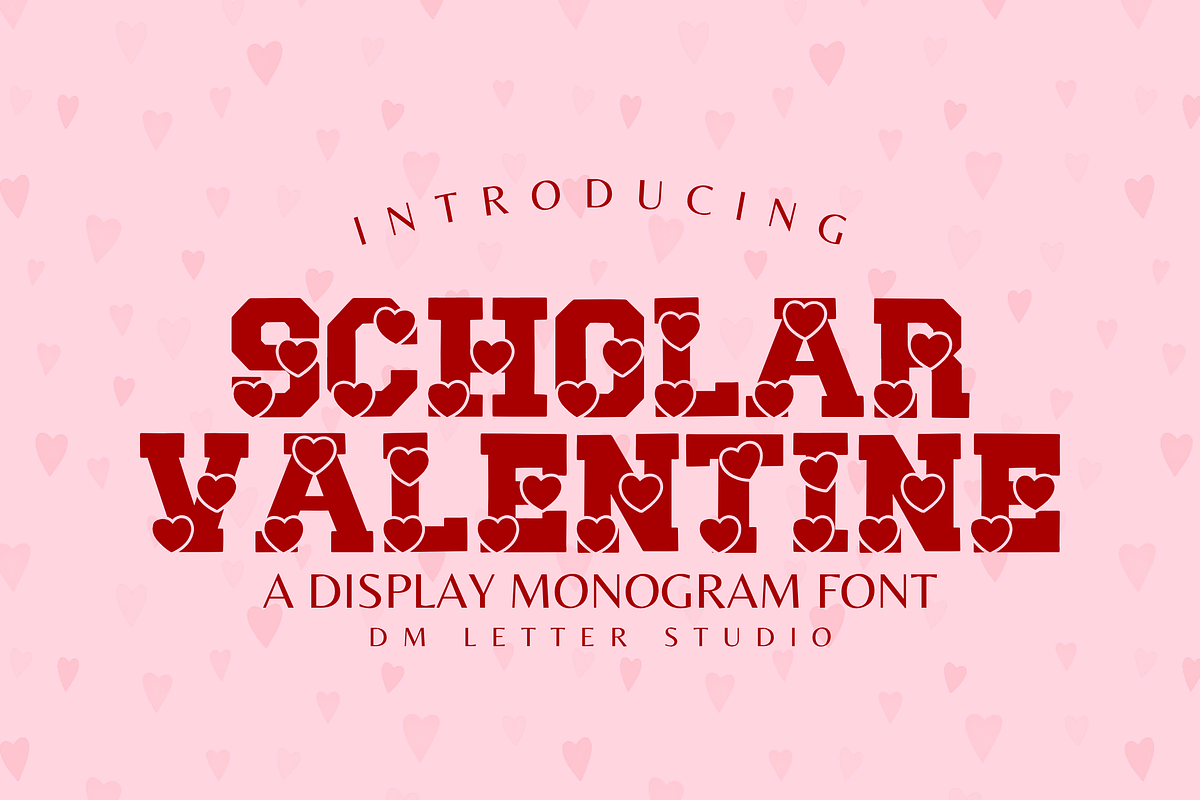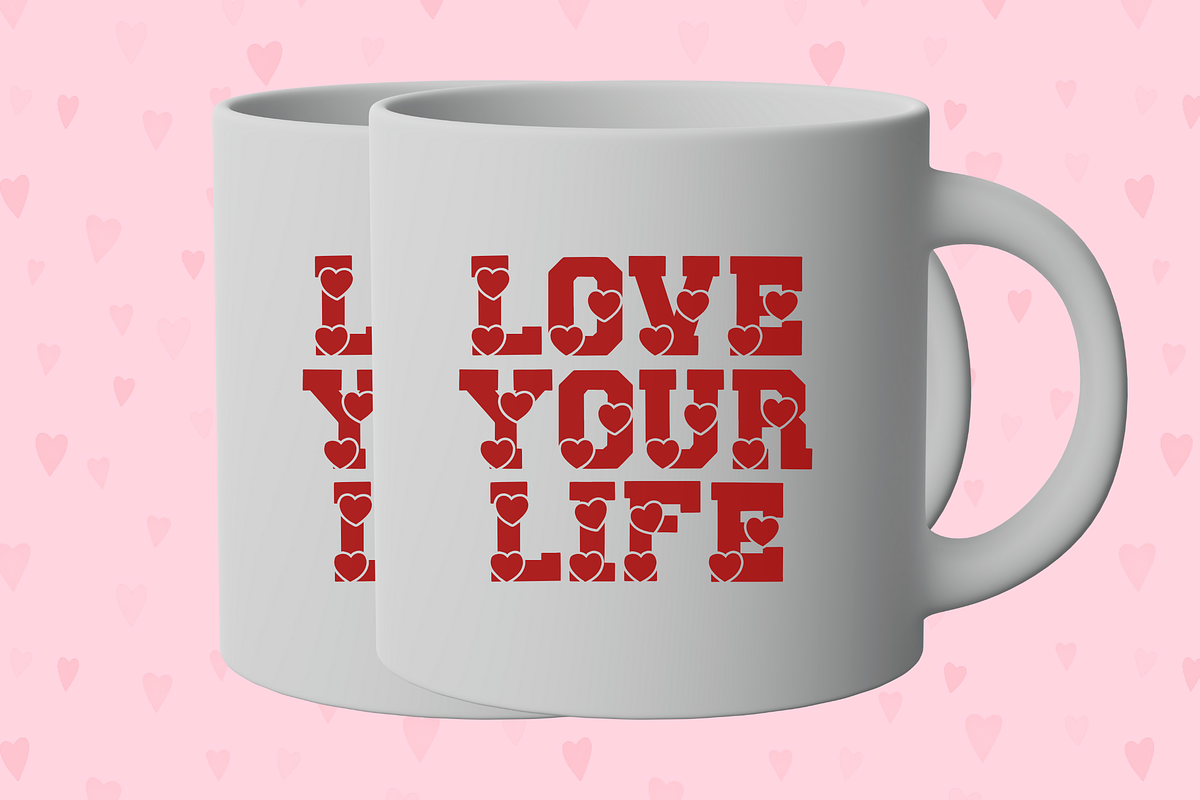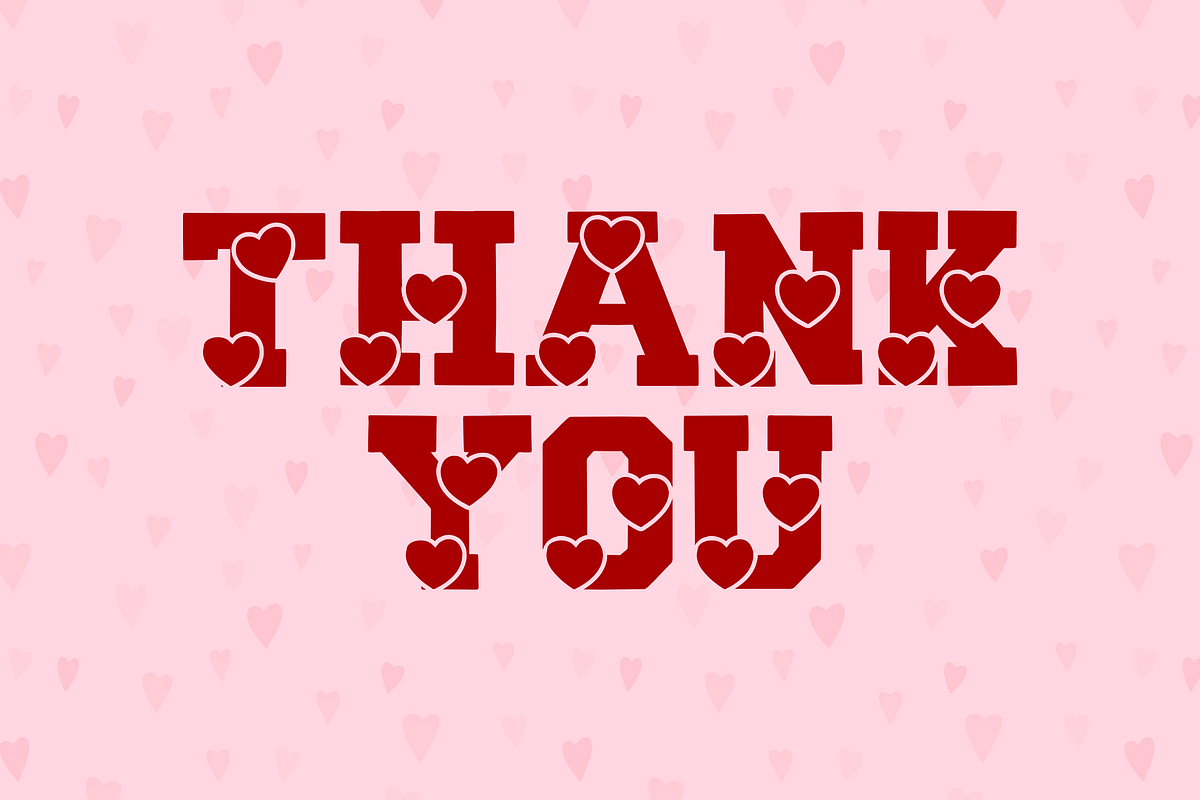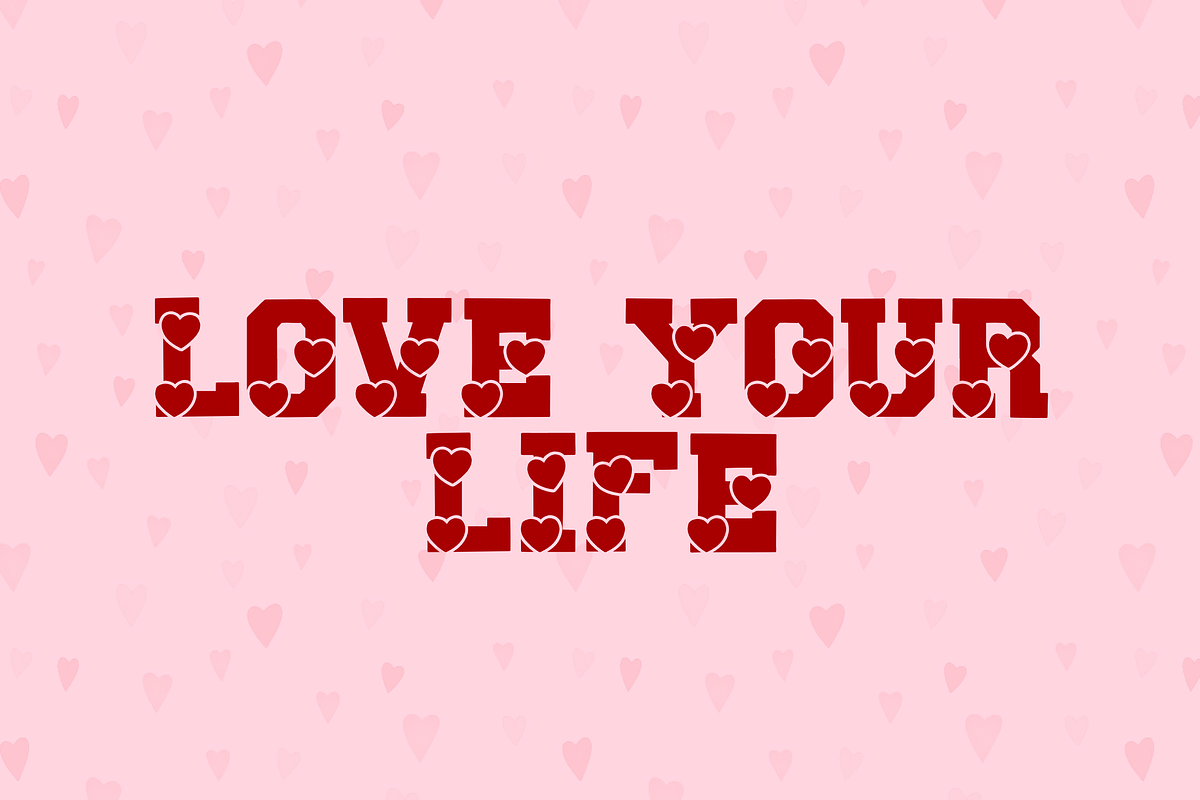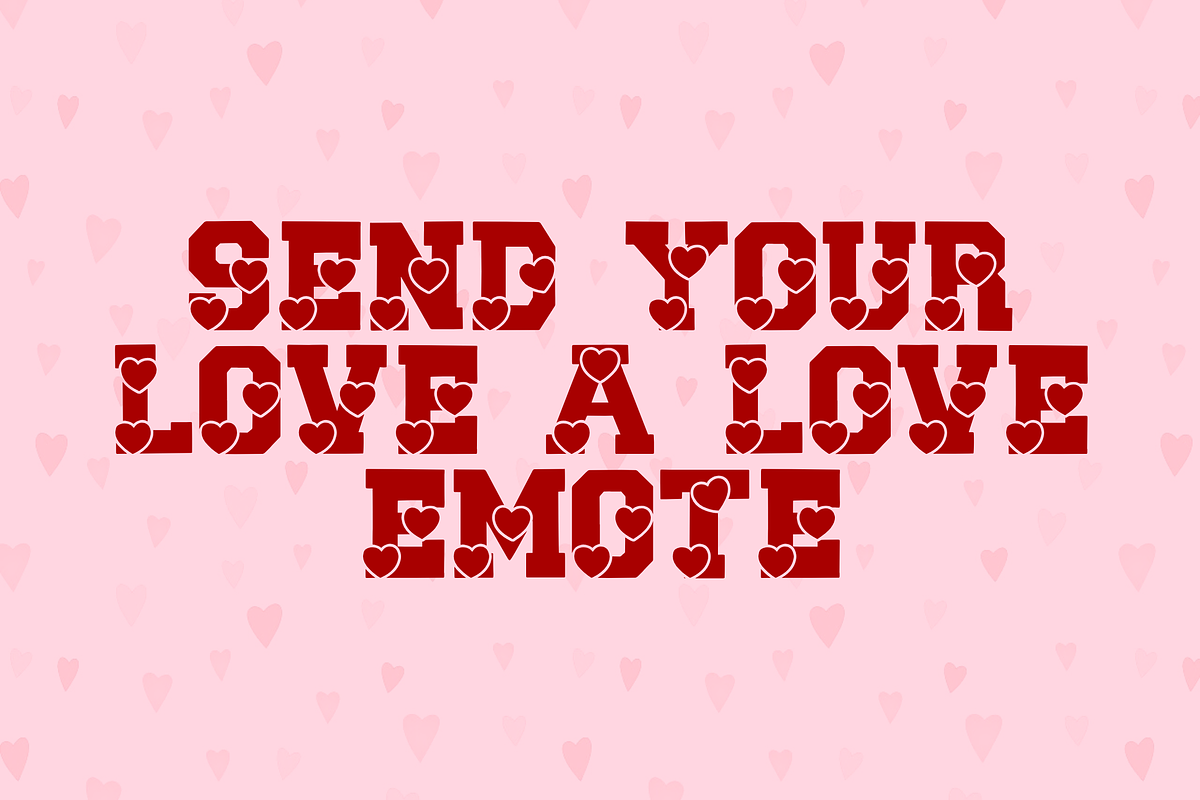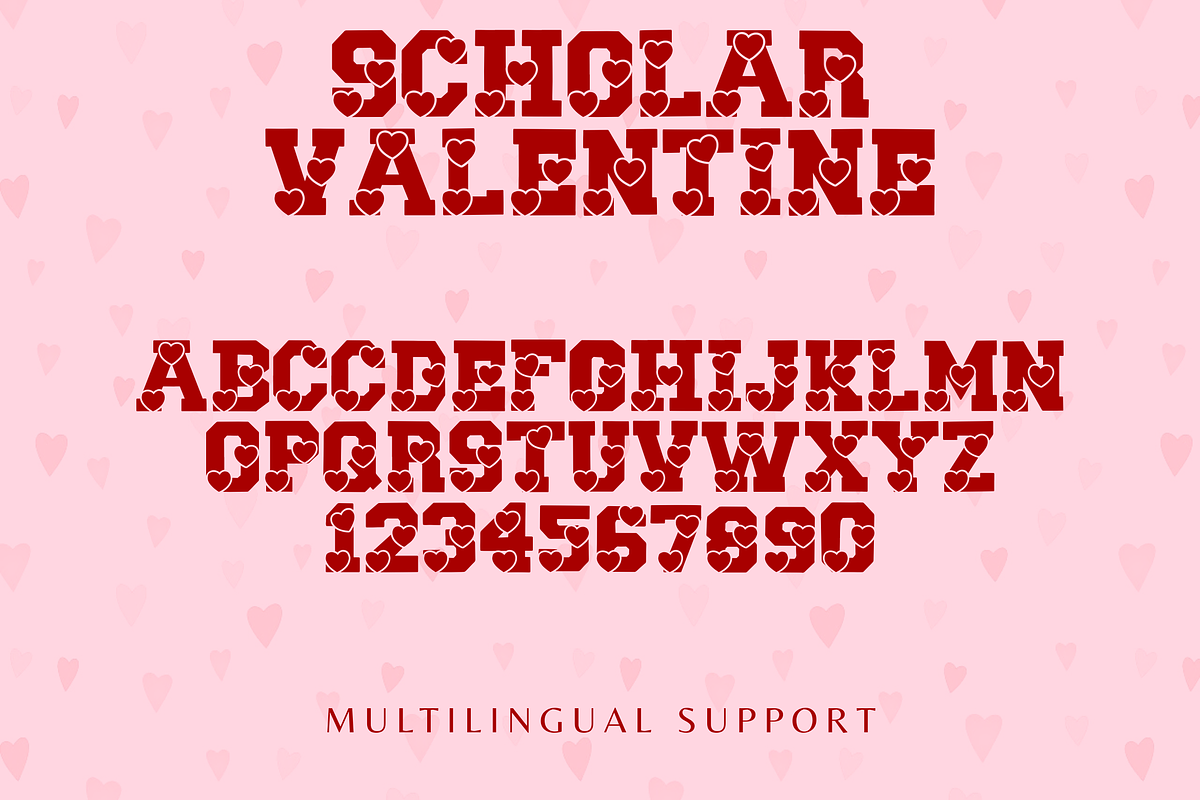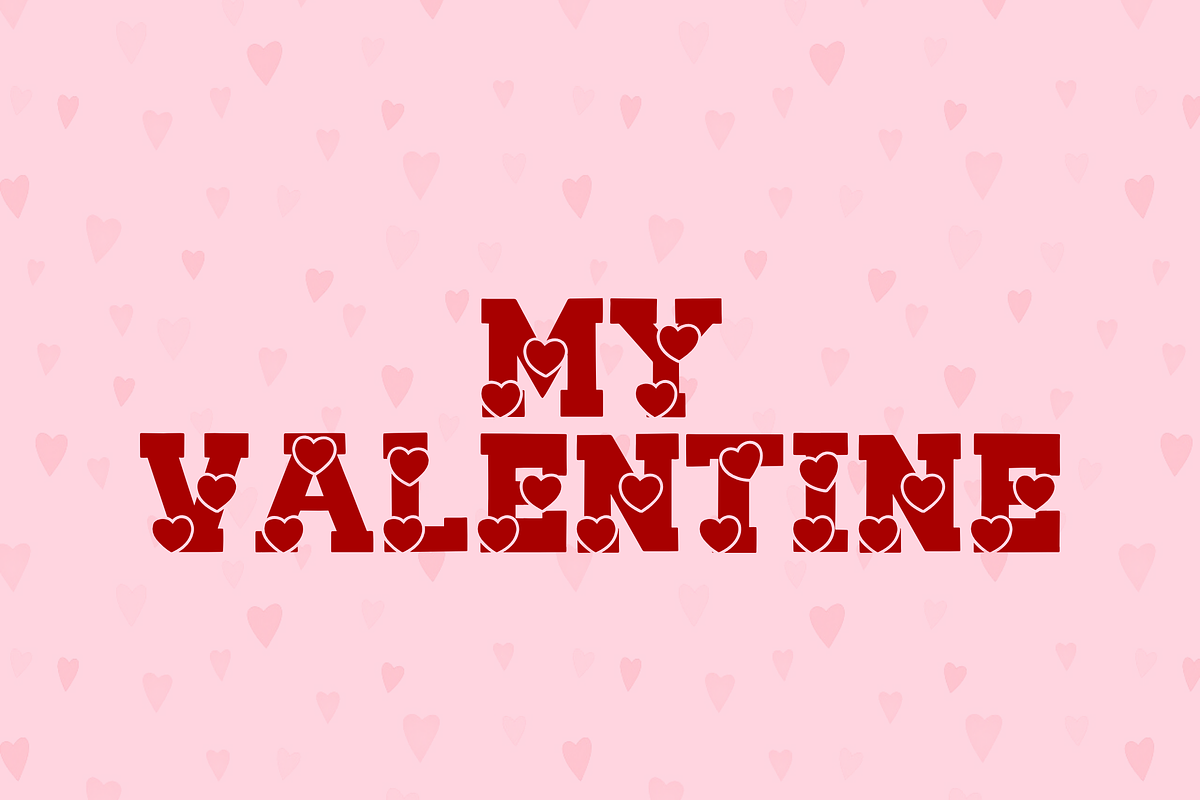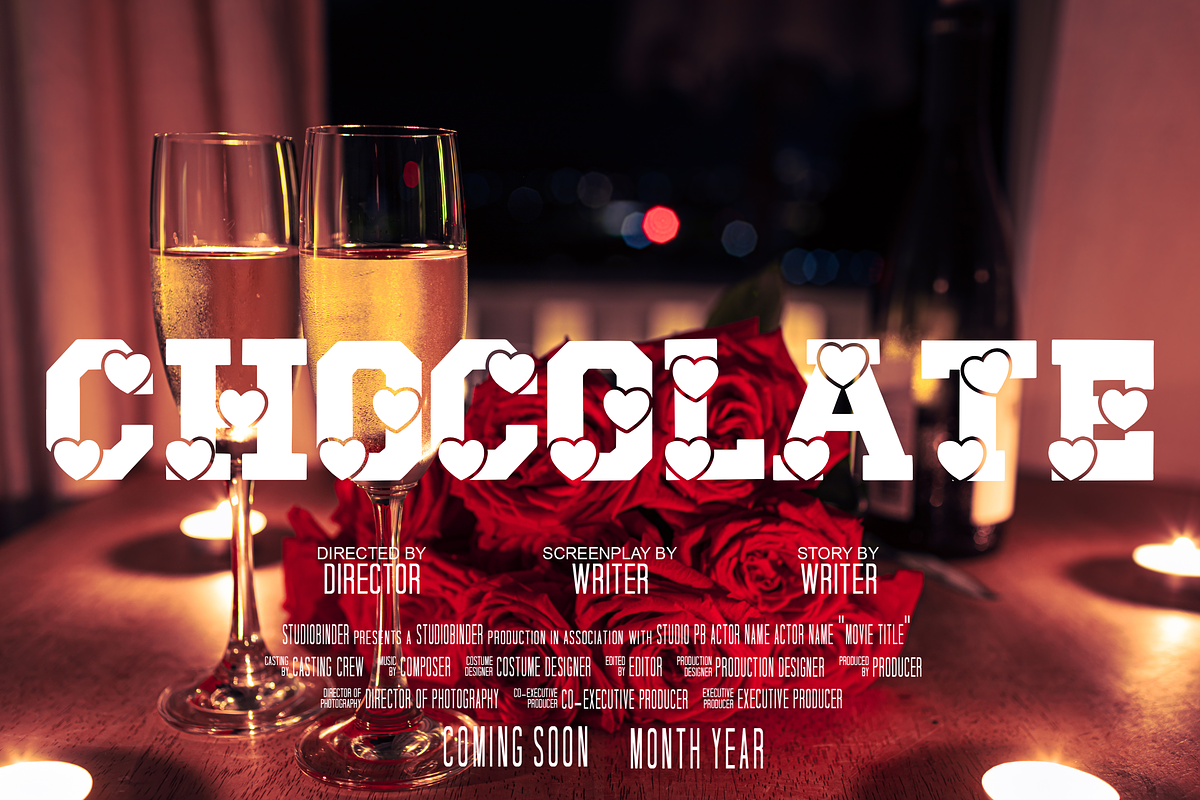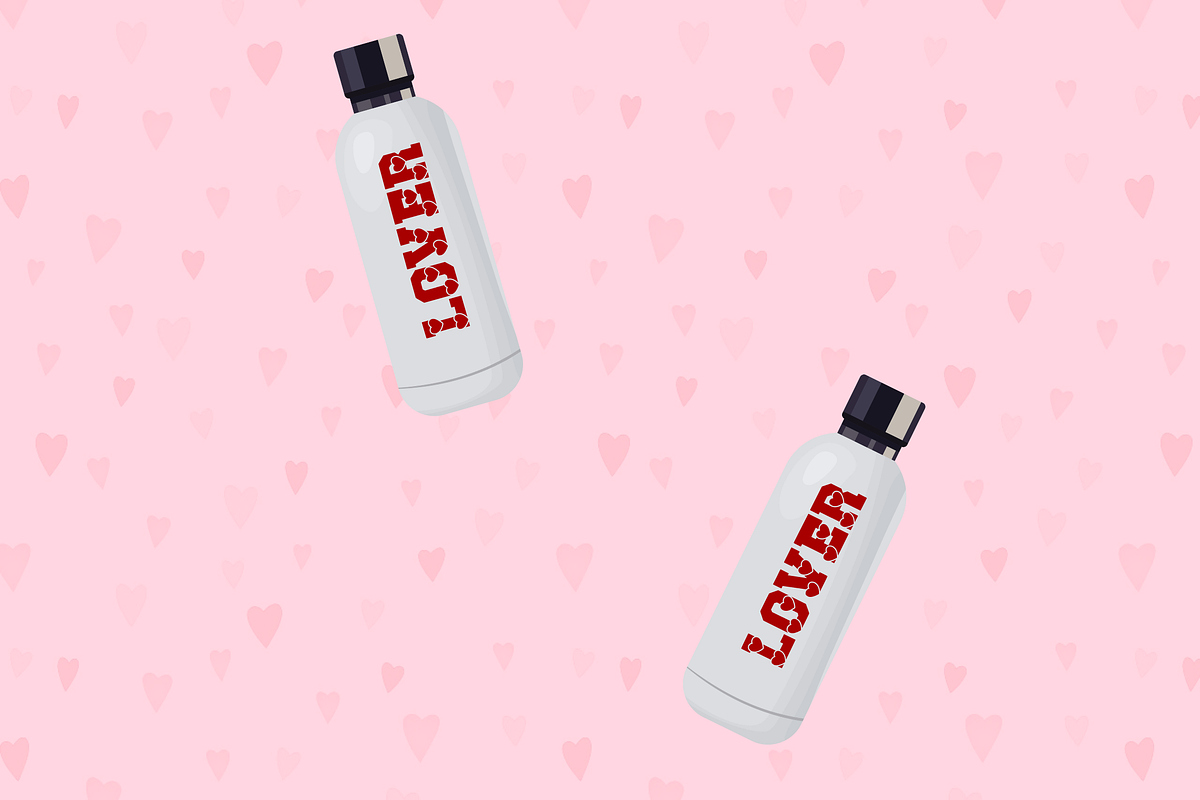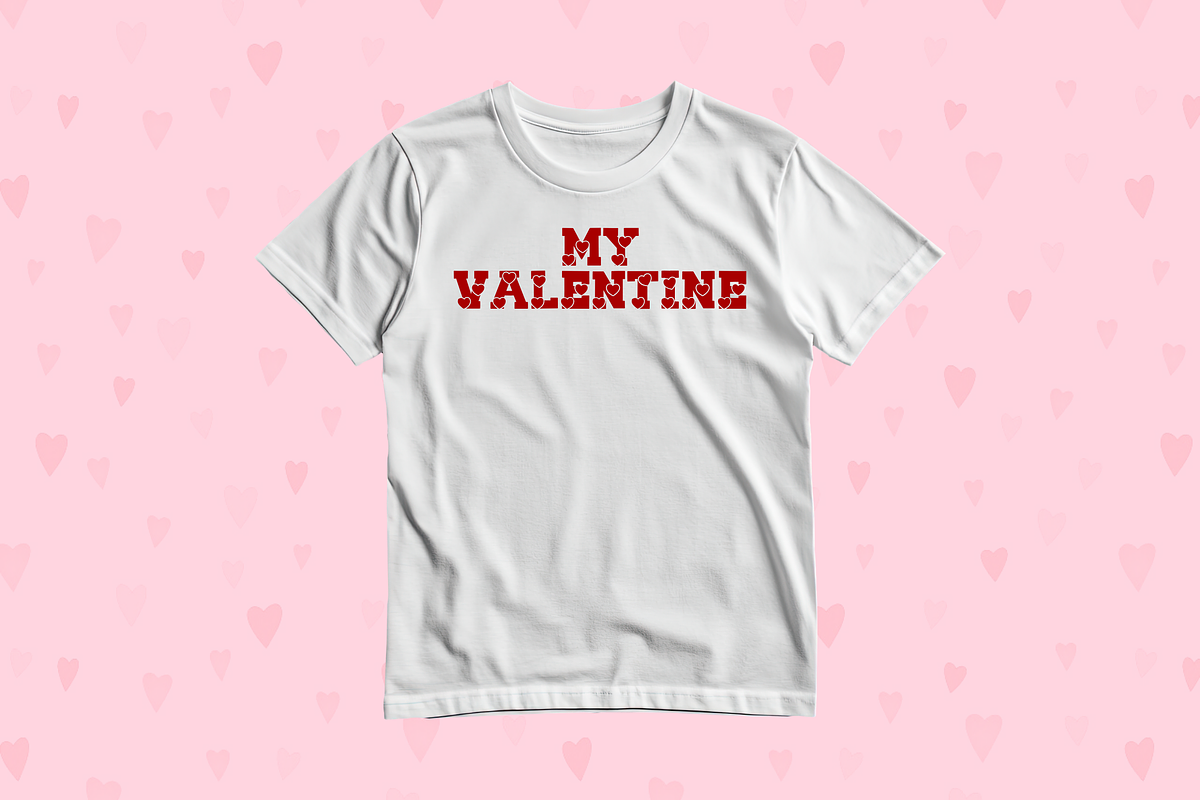
Scholar Valentine
Scholar Valentine – Bold Varsity Valentine Font for Love-Filled Designs
Scholar Valentine is a bold and charming Valentine varsity font that combines the structured confidence of college lettering with a heartfelt romantic flair. Perfect for creating designs that celebrate love with strength and personality, this typeface is ideal for Valentine's Day cards, apparel, classroom activities, social posts, event signage, and heartfelt packaging.
Styled with clean, strong lines and soft curves, Scholar Valentine stands out in both print and digital design. It brings a sweet yet bold energy to any project, making it the perfect choice for expressing affection in a fun and collegiate way. Whether you’re creating romantic T-shirts, classroom bulletin boards, wedding signage, or festive Valentine's Day promotions, this font delivers with impact and clarity.
Scholar Valentine is an all-caps display font, designed for maximum readability while keeping a playful tone. Its structure makes it a versatile addition to any creative toolkit, especially for seasonal merchandise and printable projects on Canva, Cricut, Silhouette, or even Adobe apps.
If you’re building a Valentine-themed brand, crafting romantic designs, or designing for seasonal promotions, Scholar Valentine adds a bold, festive personality that will make your message stand out with love.
All-Caps Varsity Lettering with Romantic Twist
Designed for Valentine Cards, Shirts, Posters, Events, and Merch
Full A–Z Uppercase, Numbers, Punctuation & Multilingual Characters